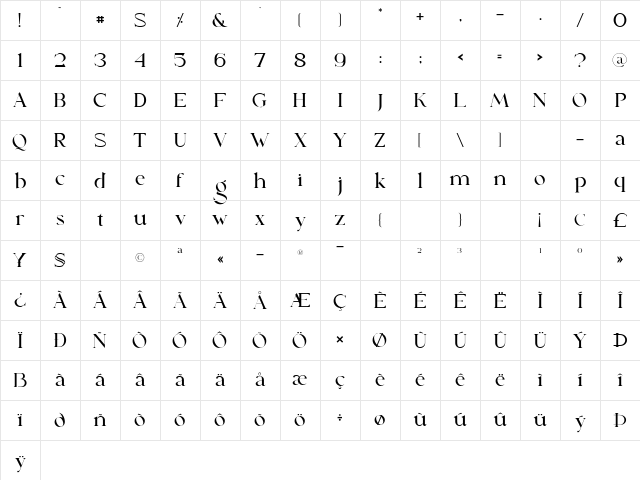
Frankfute Regular Free Font
Frankfute Regular
Foundry: Typegoals labs
Designer: Elevencreative
Design Context for Frankfute
Frankfute is a composed and adaptable typeface that performs quietly and consistently across a wide range of design contexts.
Who designed the Frankfute Regular font?